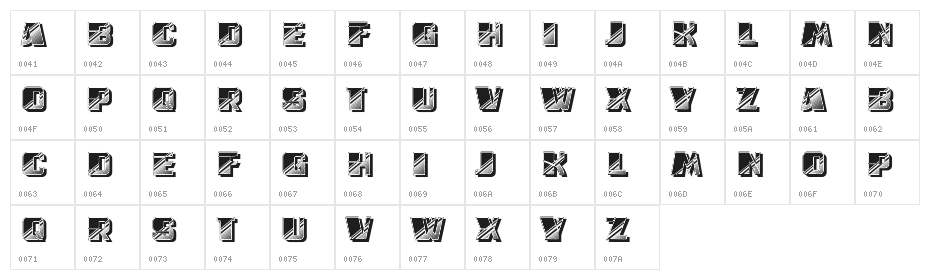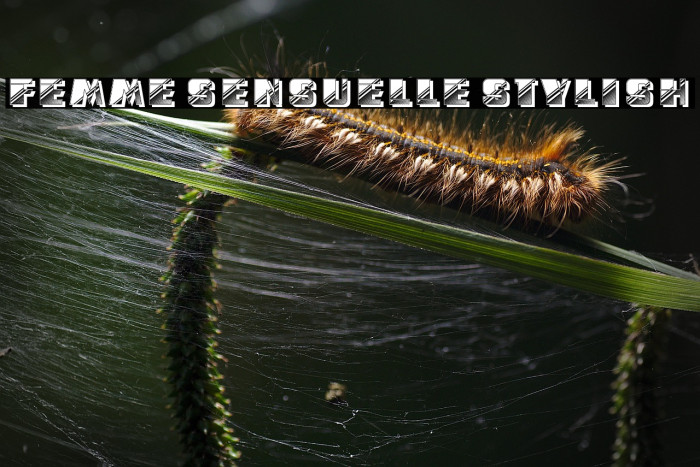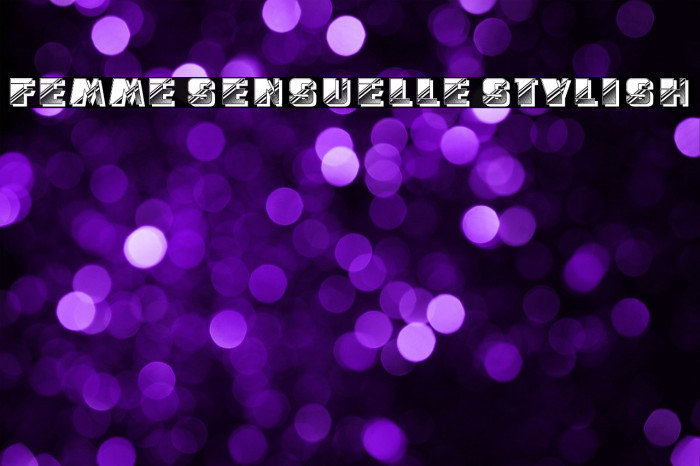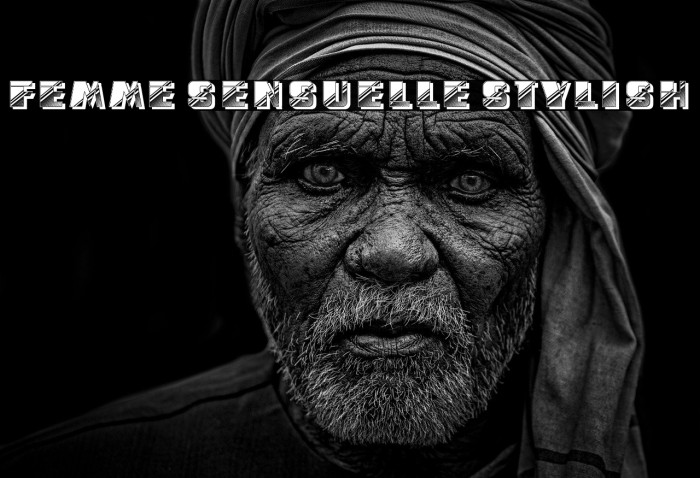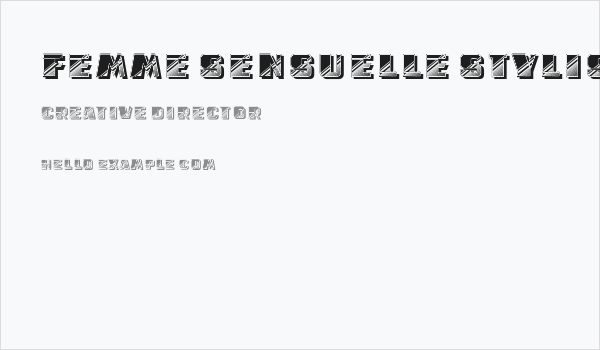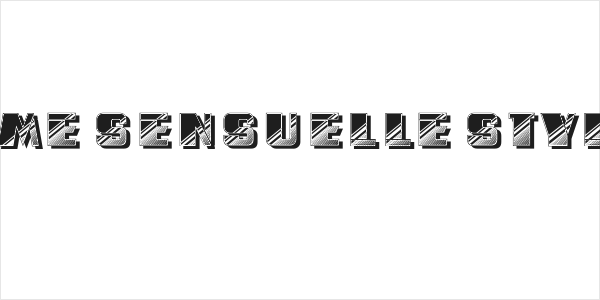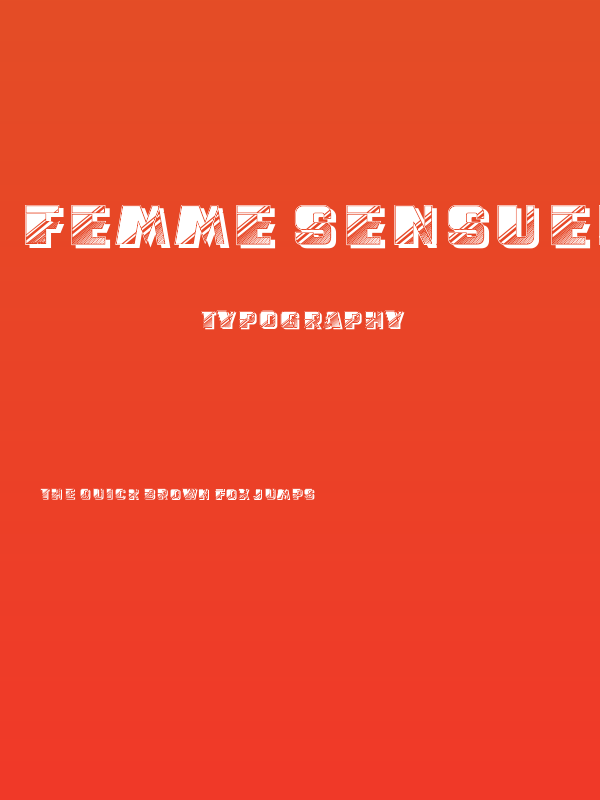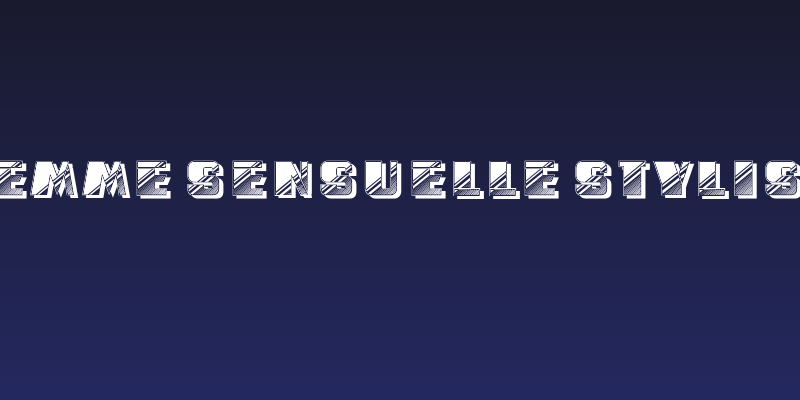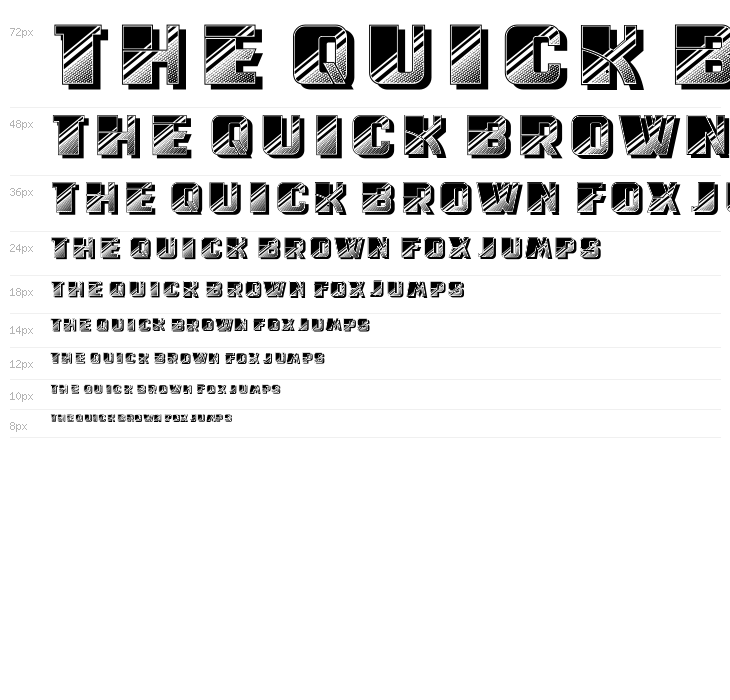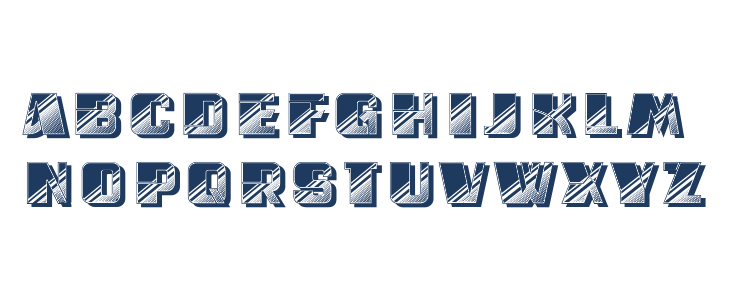
Femme Sensuelle Stylish Font
Femme Sensuelle Stylish Description
This font features a bold and decorative style with a unique striped pattern filling each character. The uppercase letters are designed with a strong geometric structure, giving them a modern and edgy appearance. The font's distinct style is characterized by its diagonal lines that create a sense of movement and dynamism. The overall look is both stylish and attention-grabbing, making it suitable for projects that require a bold statement. The characters are evenly spaced, ensuring readability while maintaining a striking visual impact.